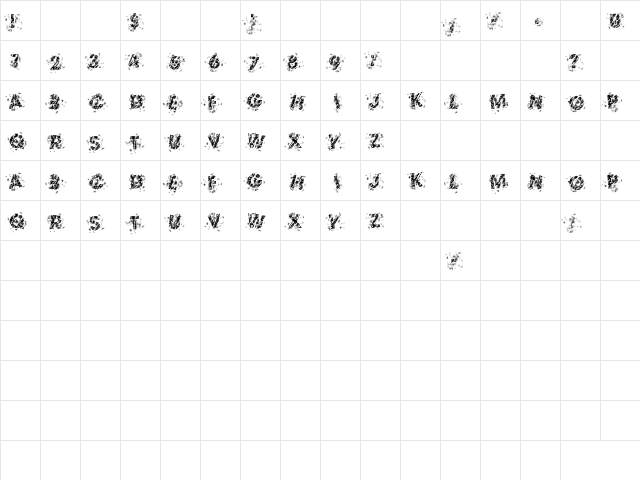
The Thrill Of The Kill Regular
Design Context for The Thrill Of The Kill Typeface
The Thrill Of The Kill is a composed and adaptable typeface that performs quietly and consistently across a wide range of design contexts.
Pro Tip: Use The Thrill Of The Kill in both headline and body roles to test its range before committing to a single application.